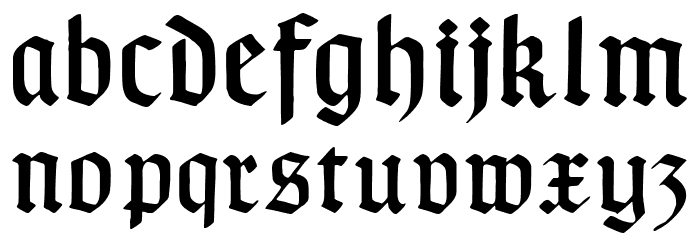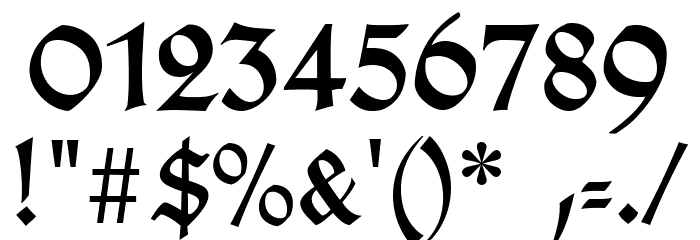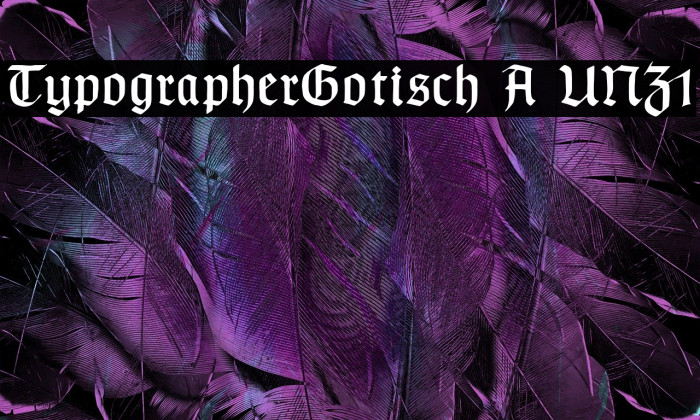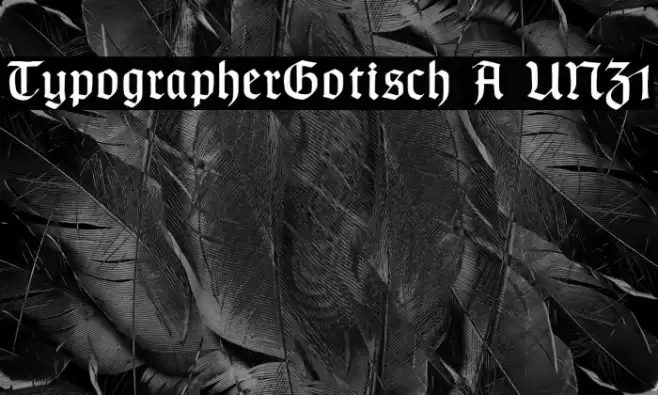
TypographerGotisch A UNZ1 Font
This font exhibits a classic blackletter style, characterized by its sharp, angular lines and intricate detailing. The uppercase letters are bold and commanding, with a distinct medieval flair that is both dramatic and elegant. The lowercase letters maintain the same stylistic elements, offering a cohesive look across the typeface. Numbers and special characters are designed with the same attention to detail, ensuring consistency throughout. The overall appearance is reminiscent of traditional Gothic script, making it ideal for projects that require a historical or formal touch.
A bold, blackletter font with sharp, angular lines and a medieval aesthetic.
- Proposed Projects: Suitable for historical documents, formal invitations, book covers, and branding that requires a classic or Gothic touch.
- Overall Style: Classic
- Use Case: Headlines, Logos, Decorative text